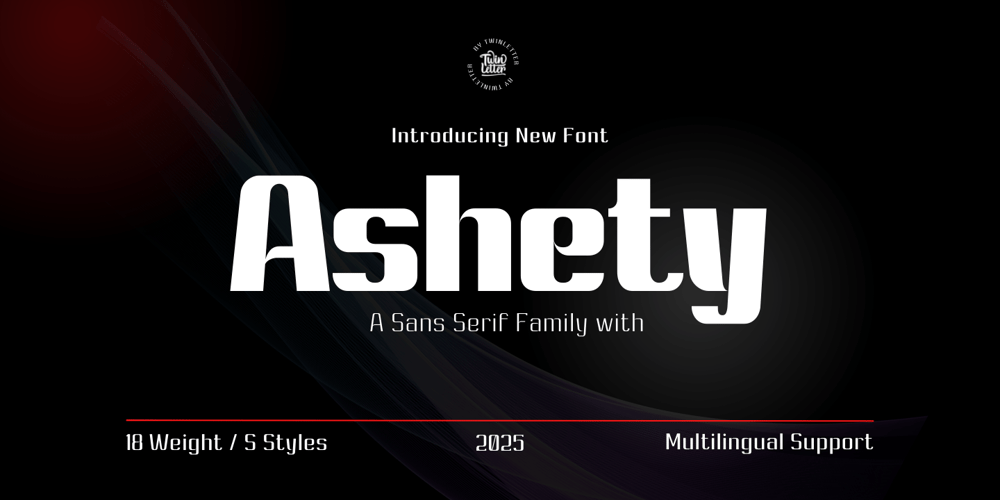
Ashety Font Family was designed by Rozikan and published by Twinletter. Ashety contains 18 styles and family package options. Ashety is our newest san serif, font family. It has 18 different styles, making it ideal for a variety of projects. This font is tailor-made for a wide variety of display design and branding requirements. This font has everything you need to create stunning graphics – including titles, text, banners, posters, and more. Now you can compose beautiful graphics that delight your audience with this original font family!of course, your various design projects will be perfect and extraordinary if you use this font because this font is equipped with a font family, both for titles and subtitles and sentence text, start using our fonts for your extraordinary projects.